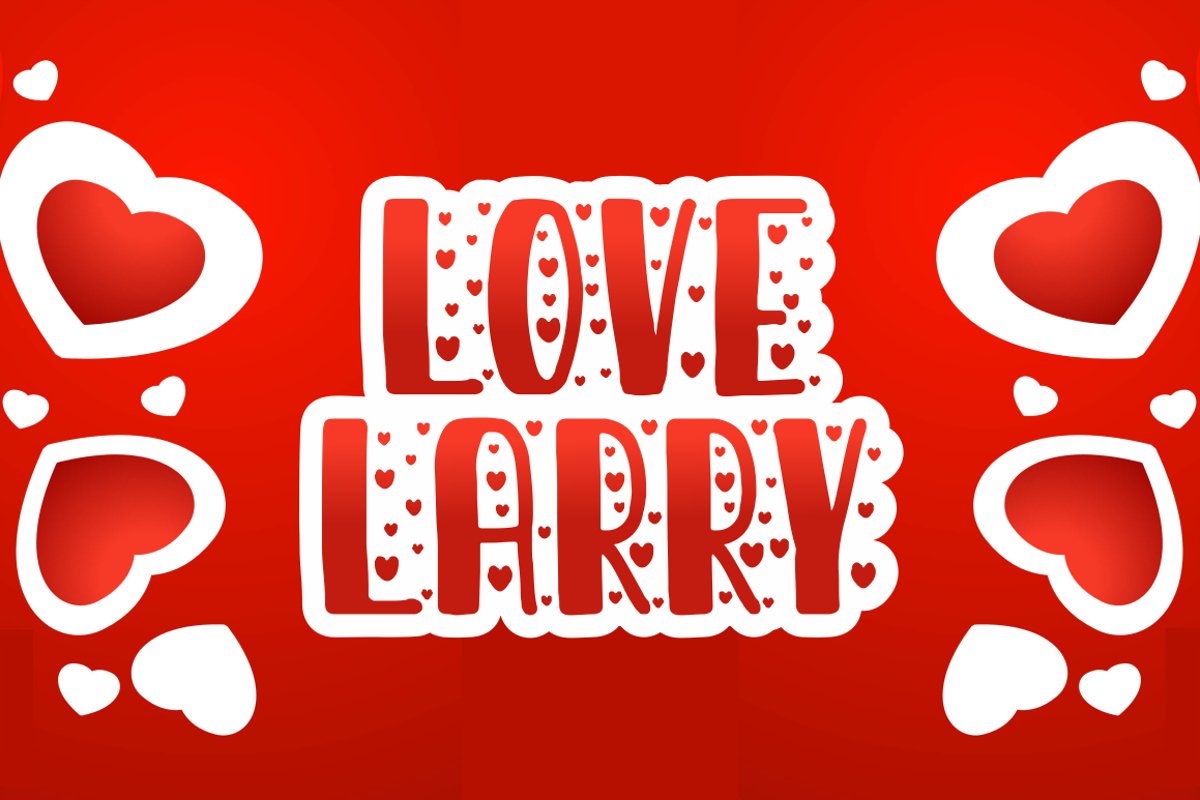
love larry
Love larry A Lovely Fonts are font designs that are made for various vector designs, printing such as digital wedding invitations, blogs, online shops, social media, while printing can be used in the field of product clothing, accessories, bags, pins, logos, business cards, watermarks and many others ...
so it can make your product look elegant and attractive, and also Multilingual support!!!